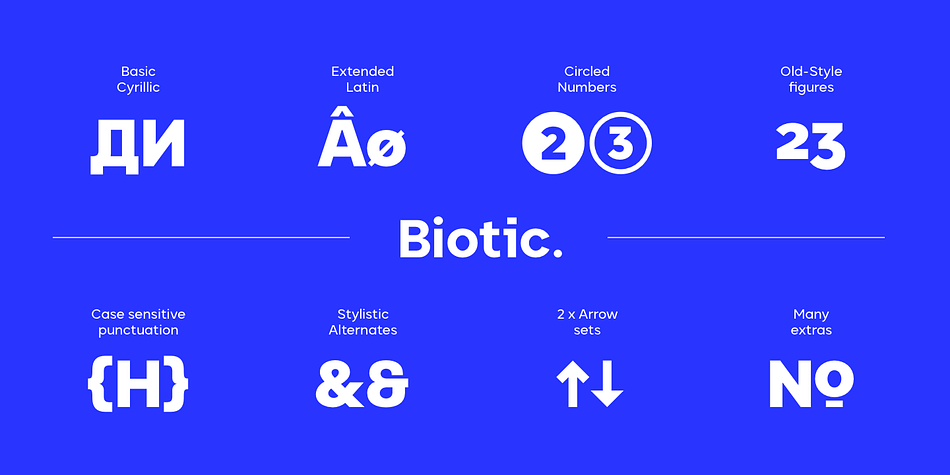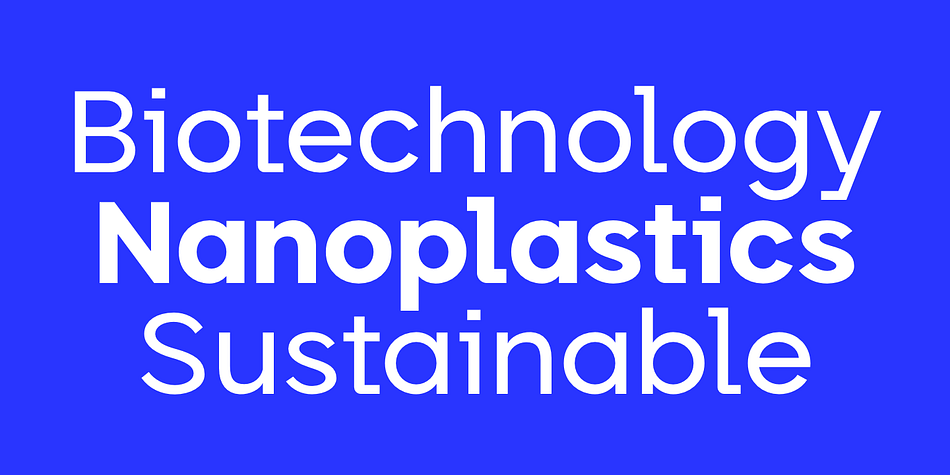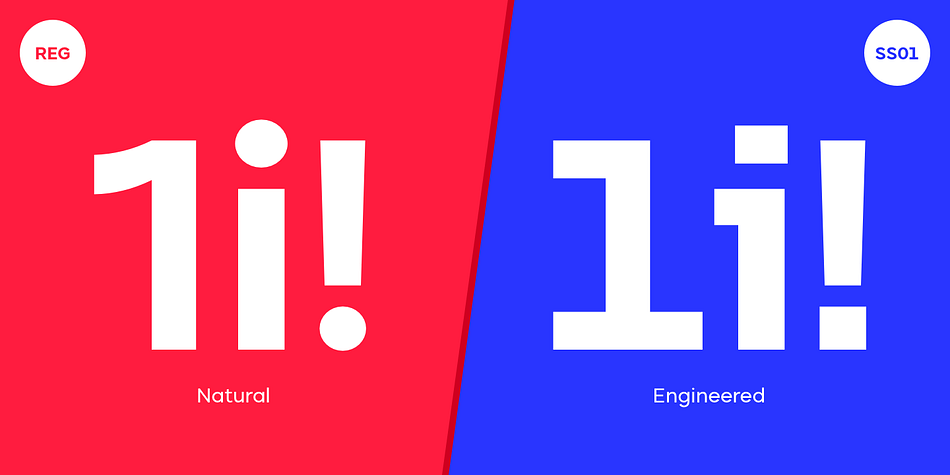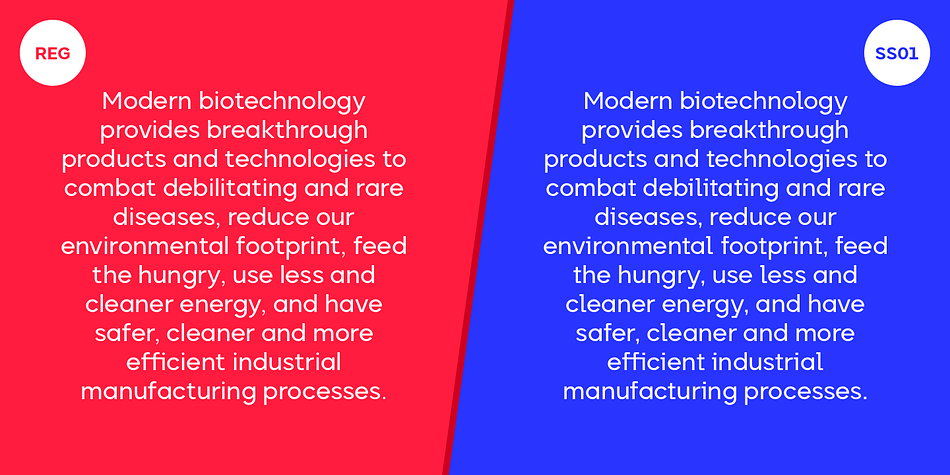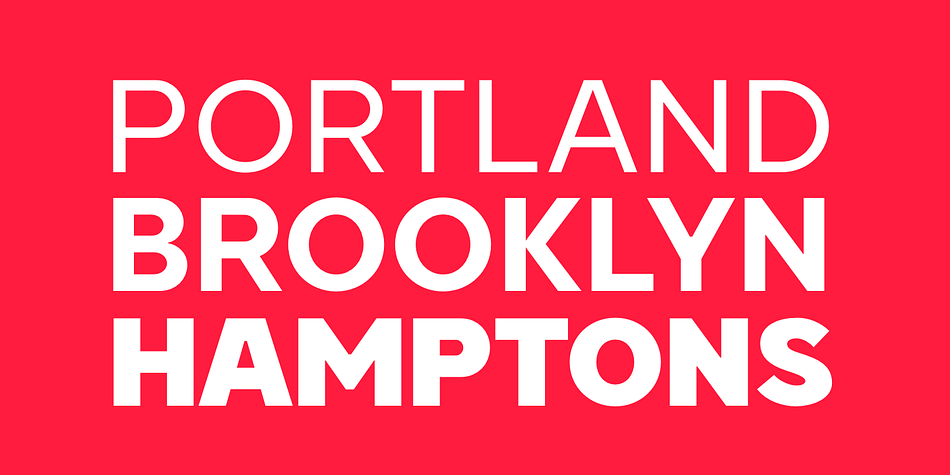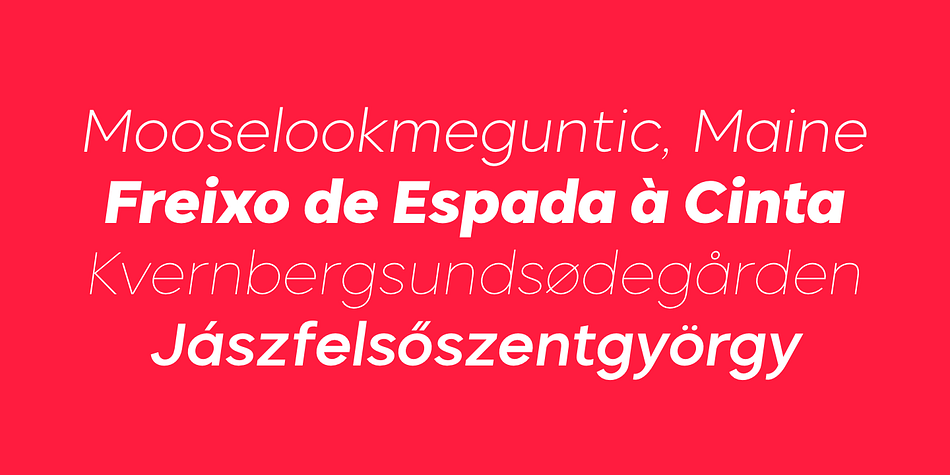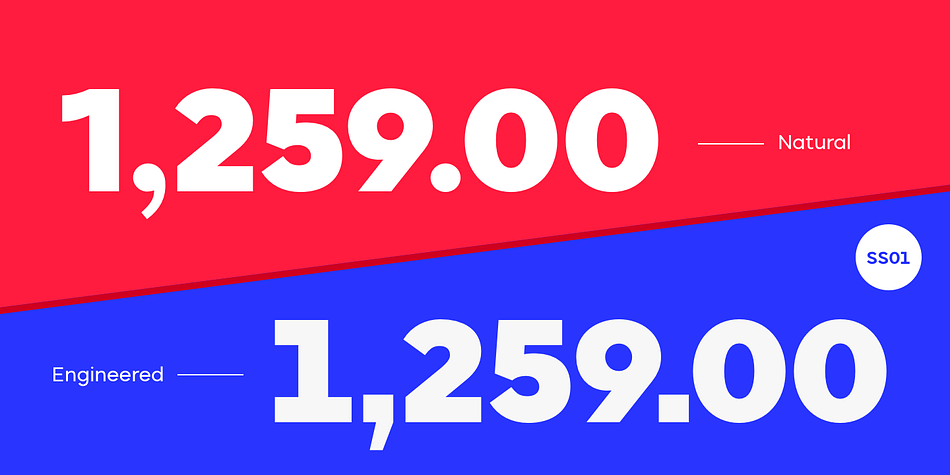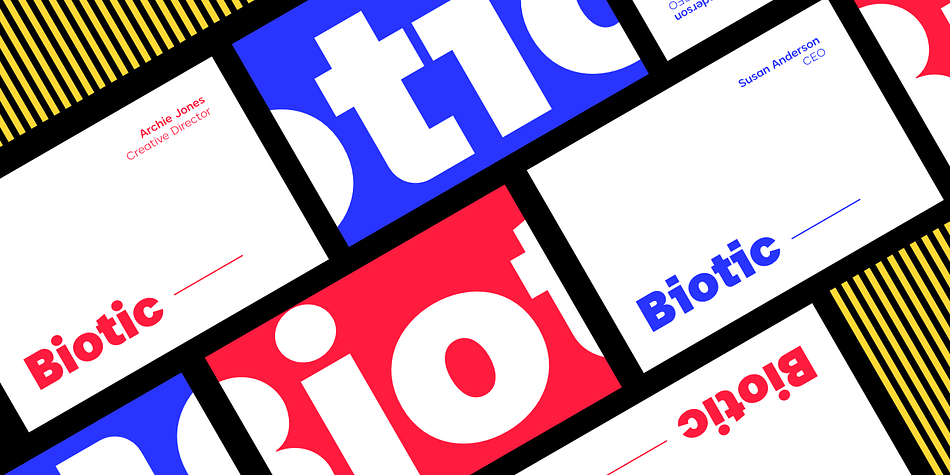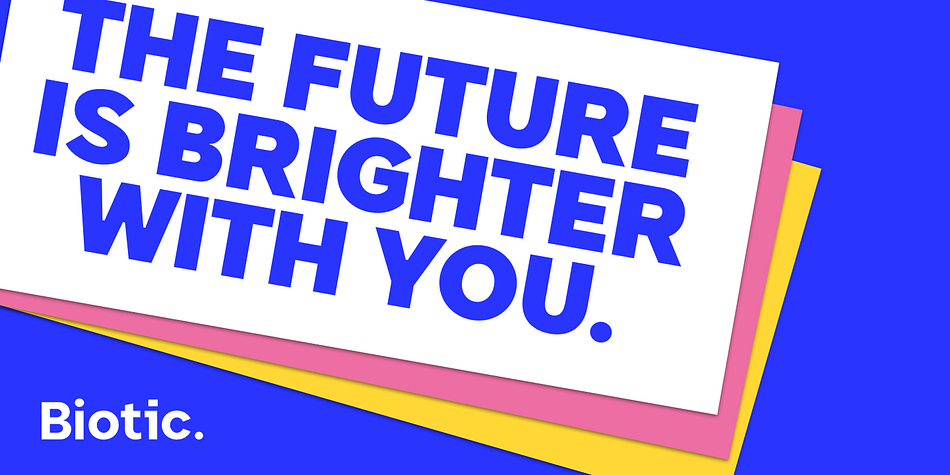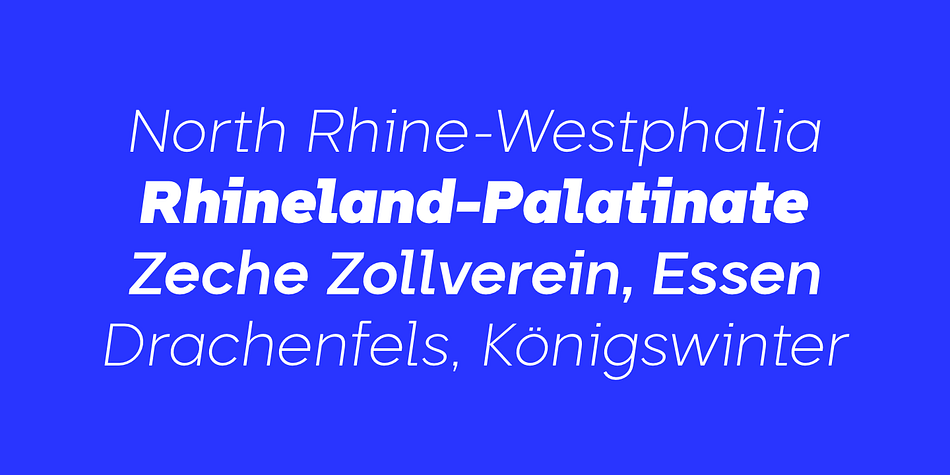
Designed by Dan Jones, Biotic is a sans serif font family. This typeface has twenty styles and was published by TypeUnion.
Biotic is a dual-personality 18 style typeface which features two distinct design approaches that can be initiated with the flick of a switch.
The natural design approach uses conventional forms for a geometric sans but when you switch to the engineered approach some key glyphs become squared to create an edgy approach in an instant. The characters that change are f, i, j, k, l, t and y, along with all punctuation and accents which switch to the square approach.
Biotic covers extended latin and basic Cyrillic and includes many opentype features such as stylistic sets & alternates, two sets of arrows, circled & old-style numbers, along with case sensitive punctuation and much more.